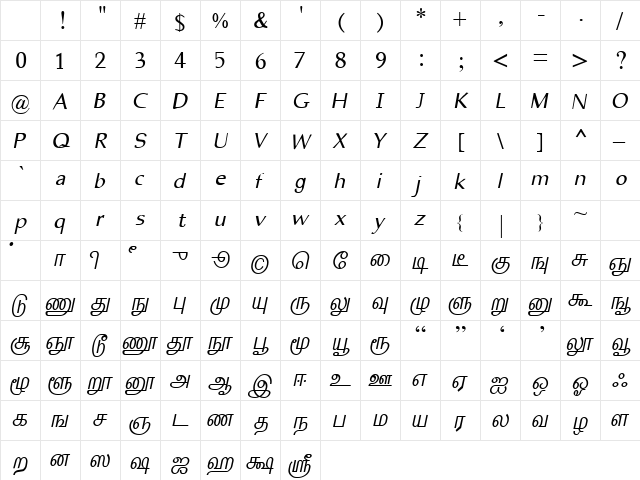
TABMalli Regular
Design Context for TABMalli
TABMalli is a composed and adaptable typeface that performs quietly and consistently across a wide range of design contexts.